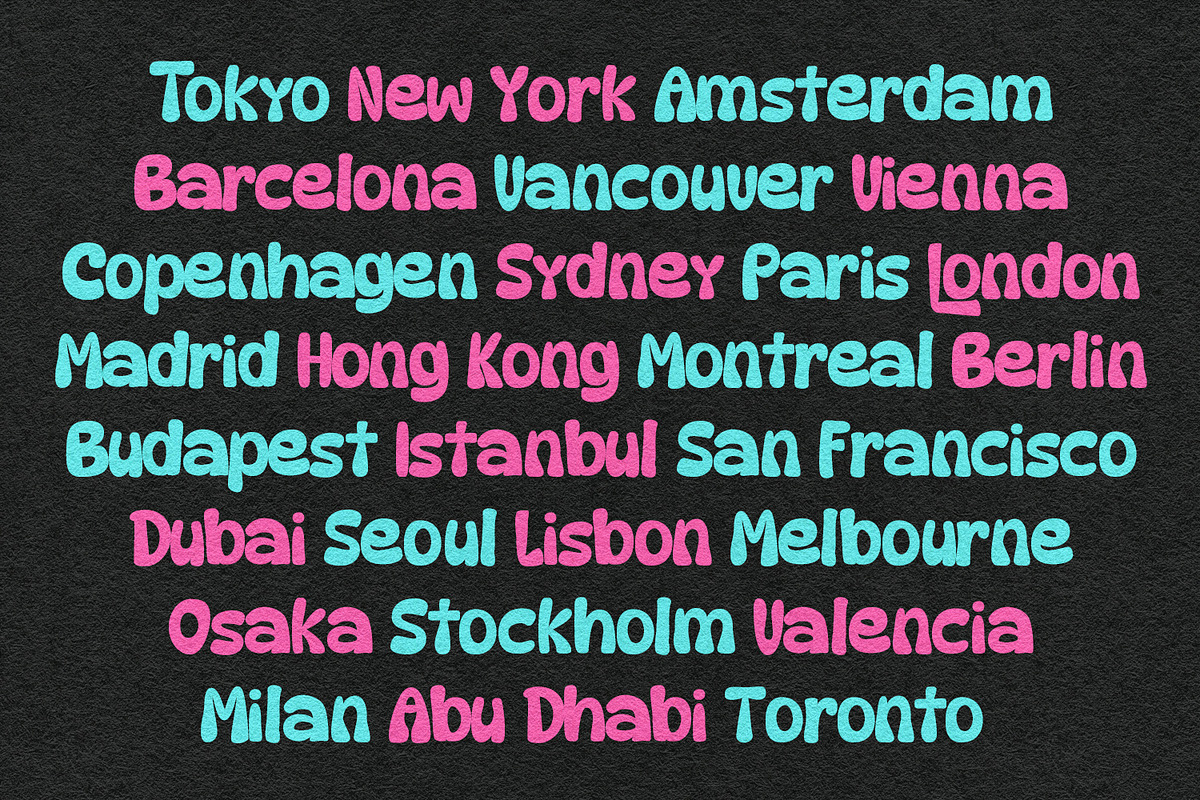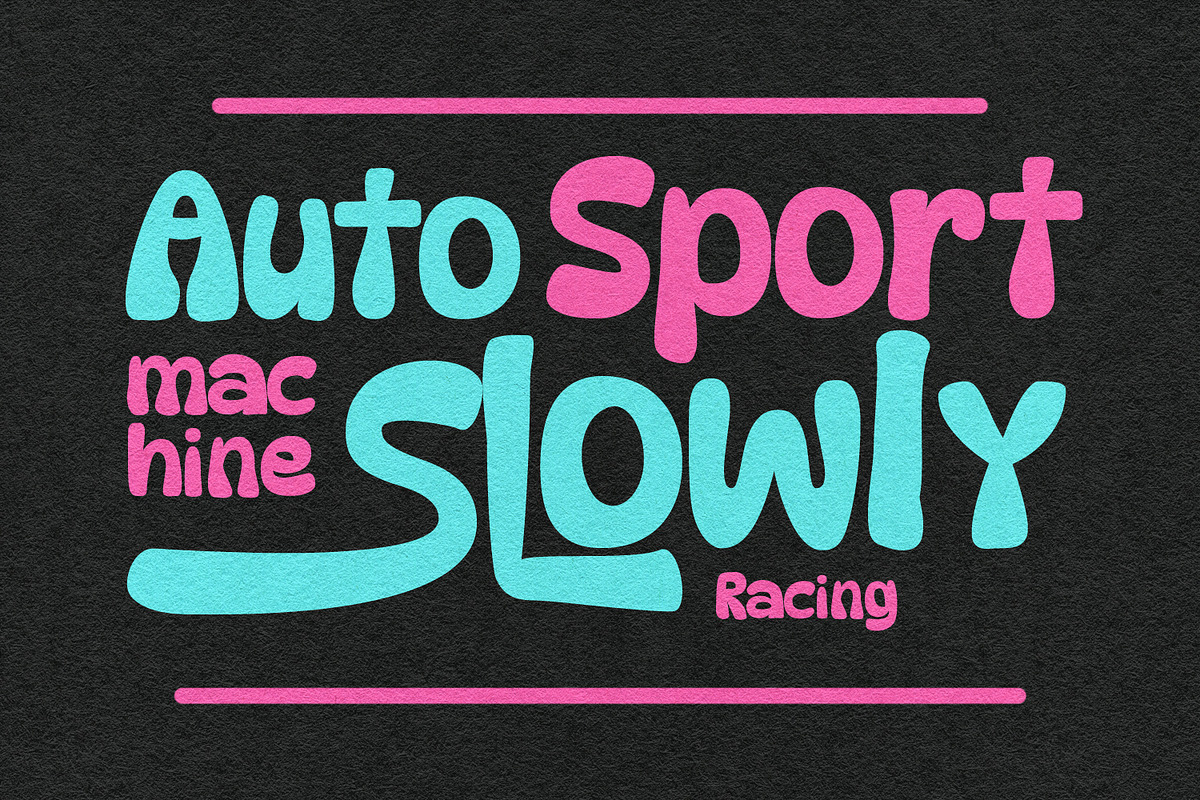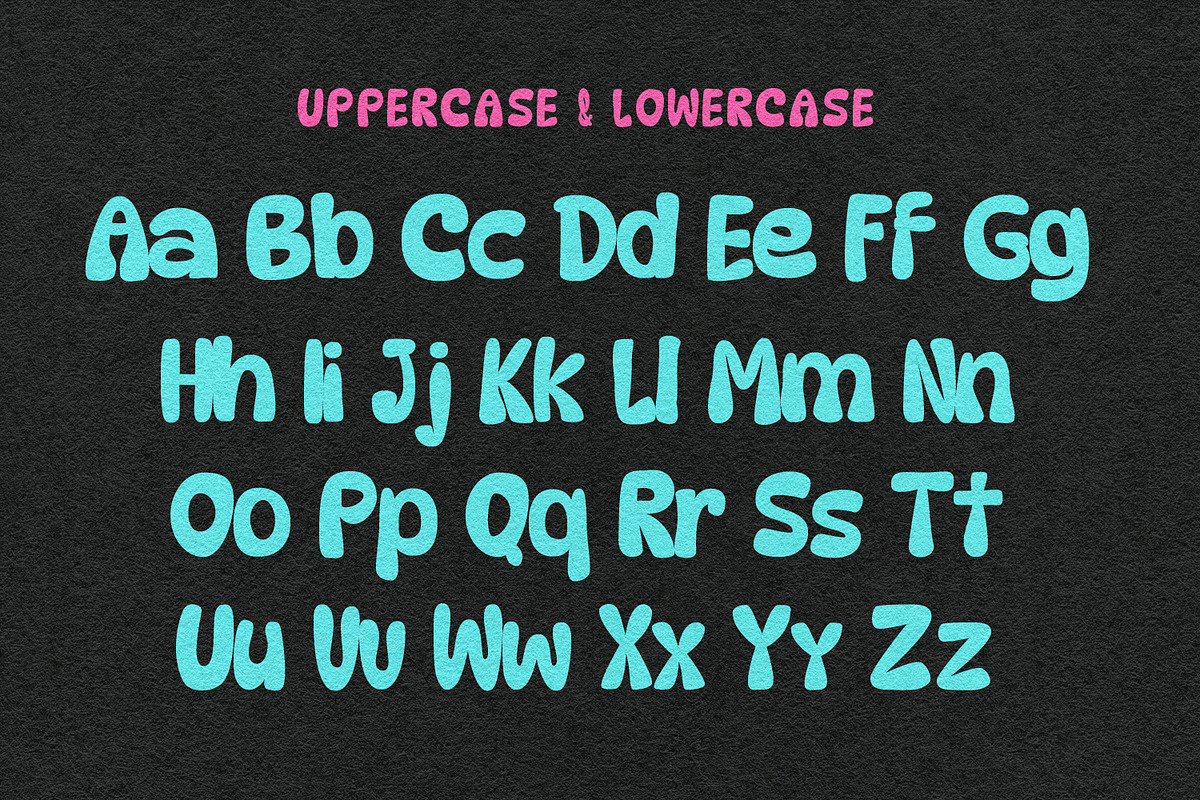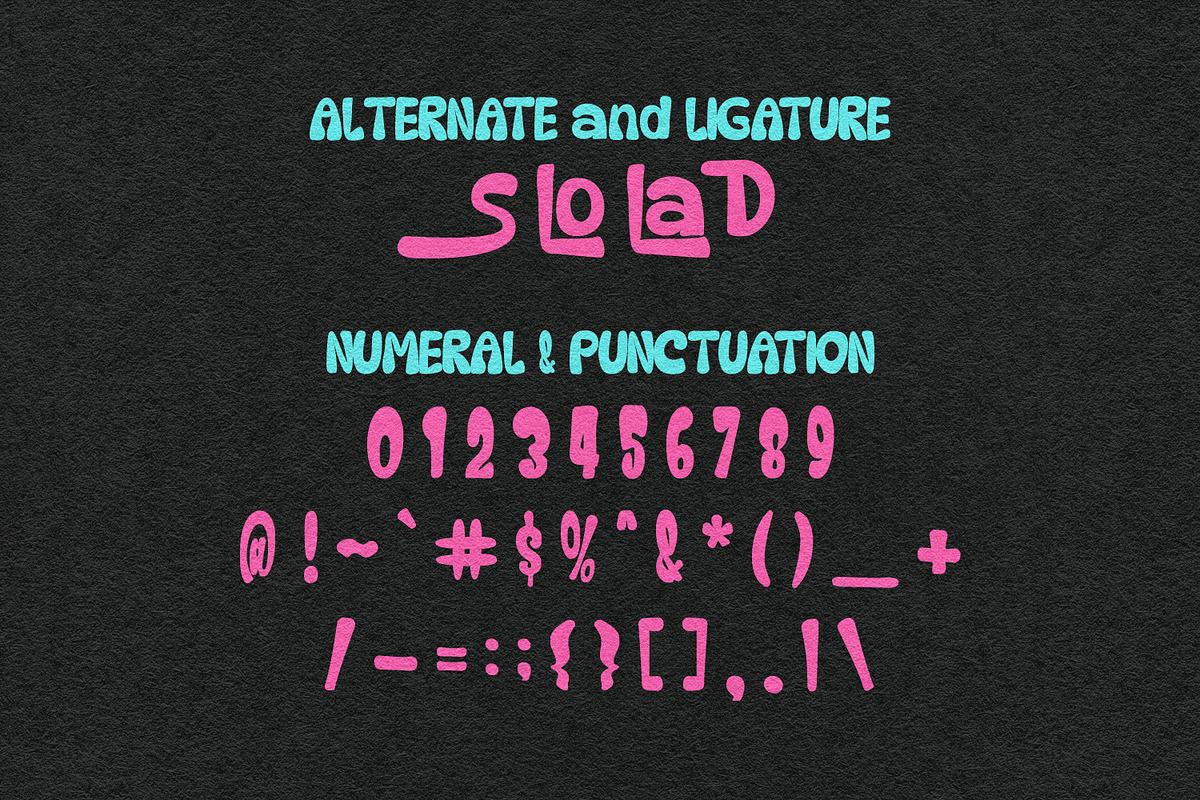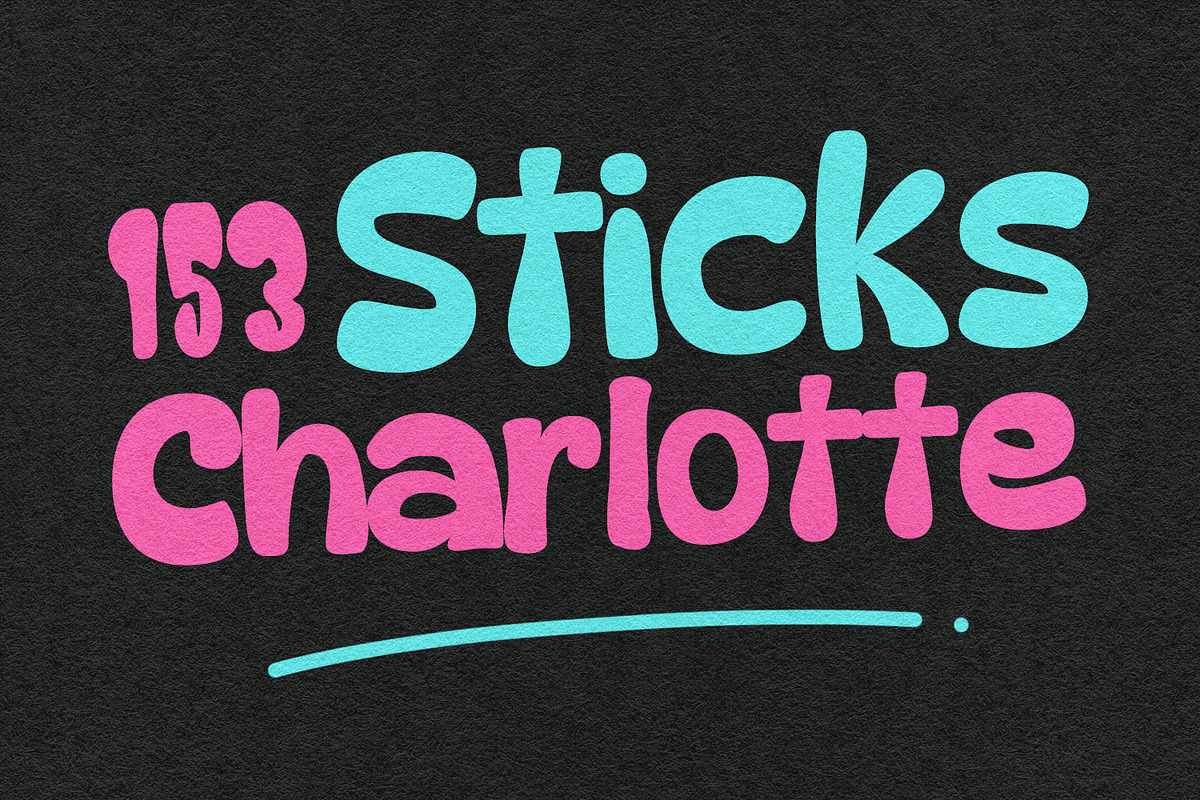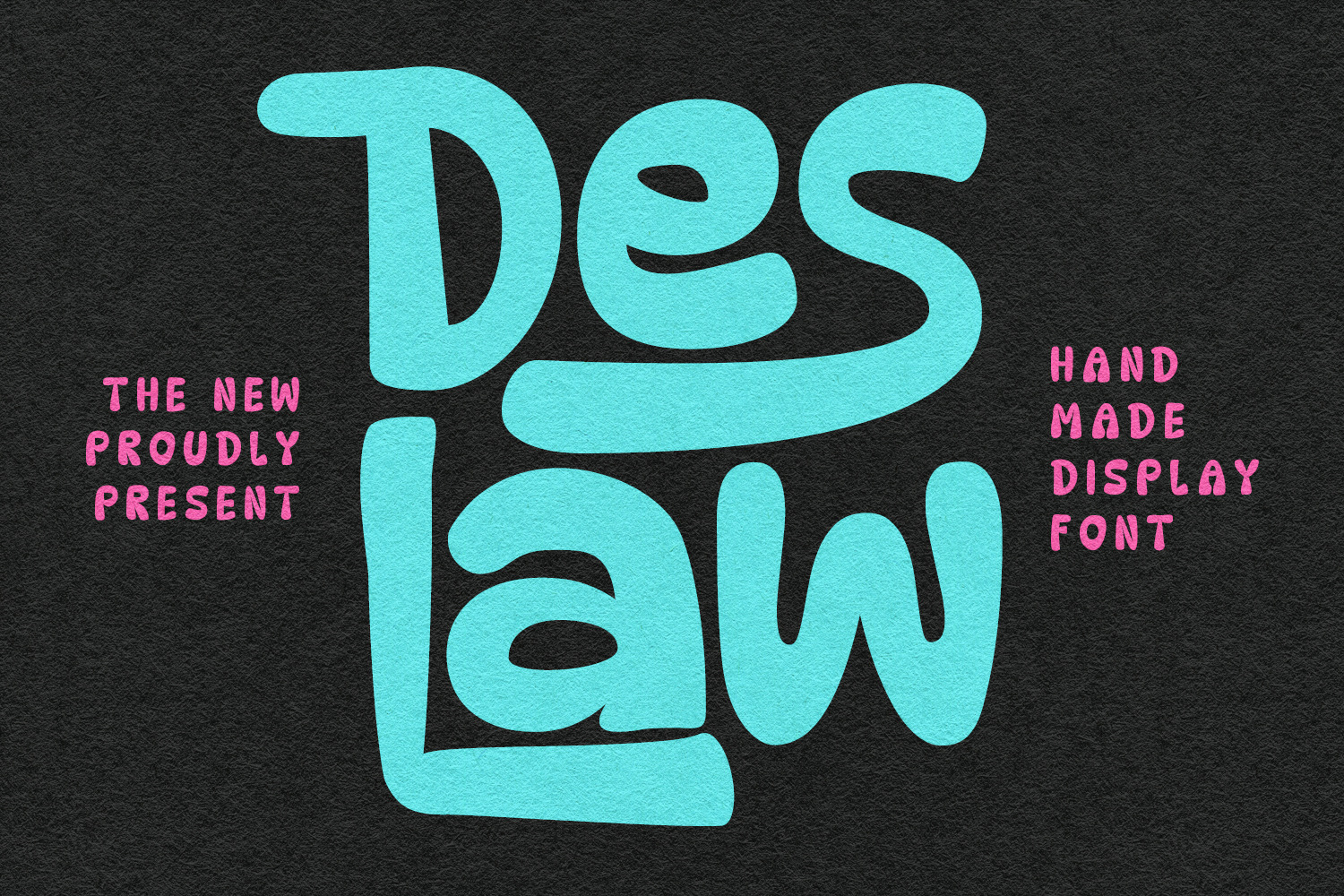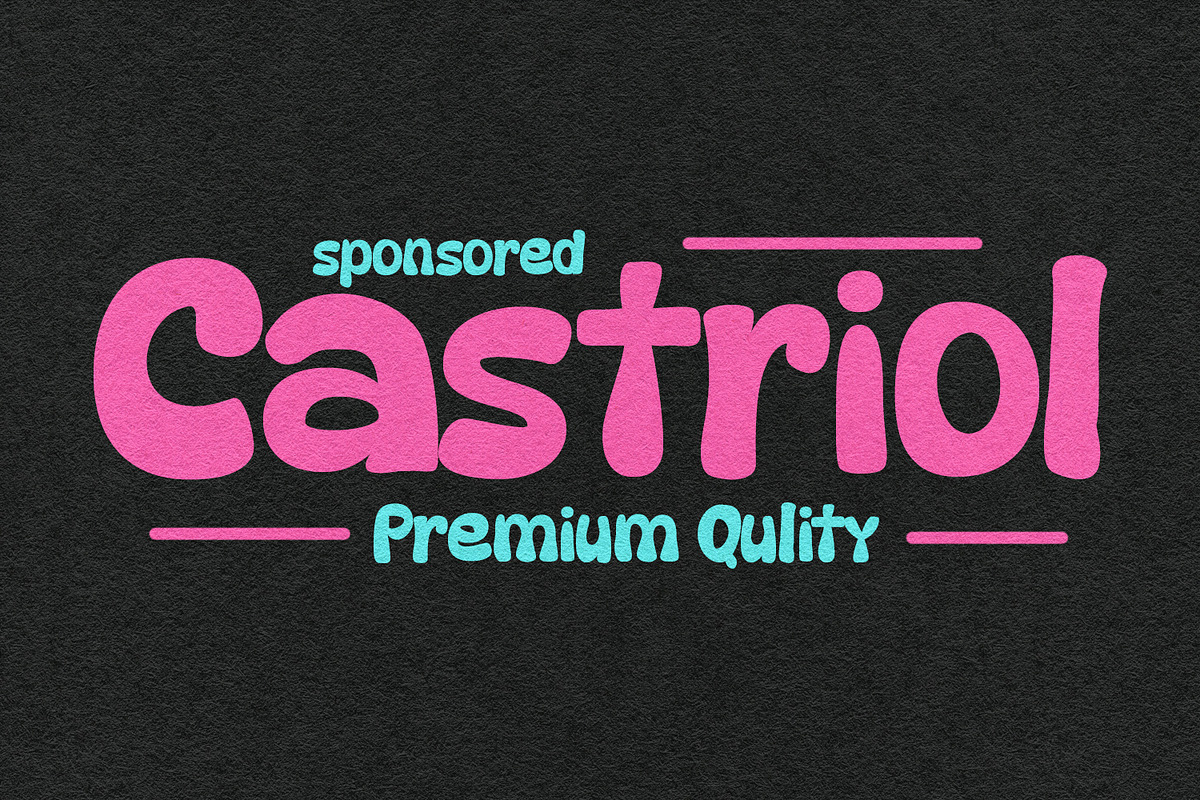
Deslaw Handmade Display Font
Deslaw is a handwritten sans display font. With smooth and bold stroke, fun character with a alternate and ligatures. To give you an extra creative work Deslaw font support multilingual more than 100+ language. This font is good for logo design, Social media, Movie Titles, Books Titles, a short text even a long text letter and good for your secondary text font with sans or serif. Make a stunning work with Deslaw font.